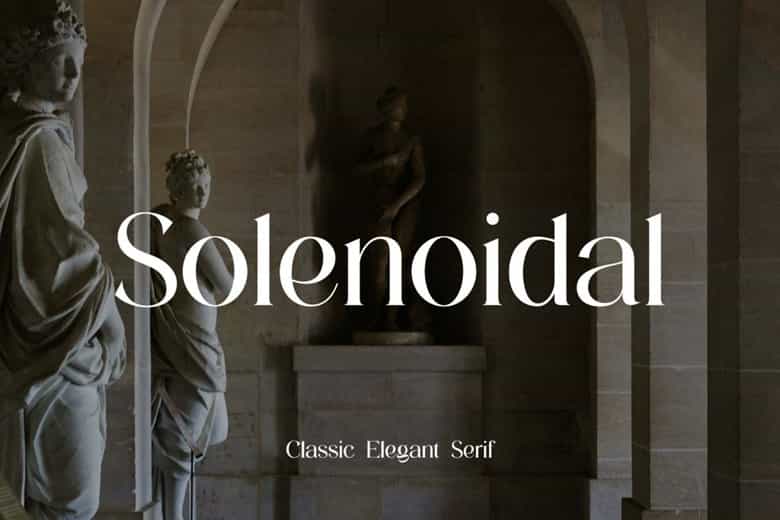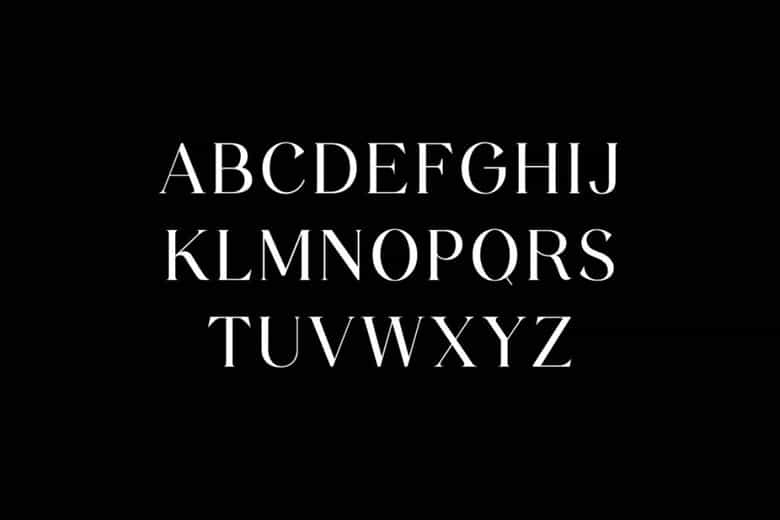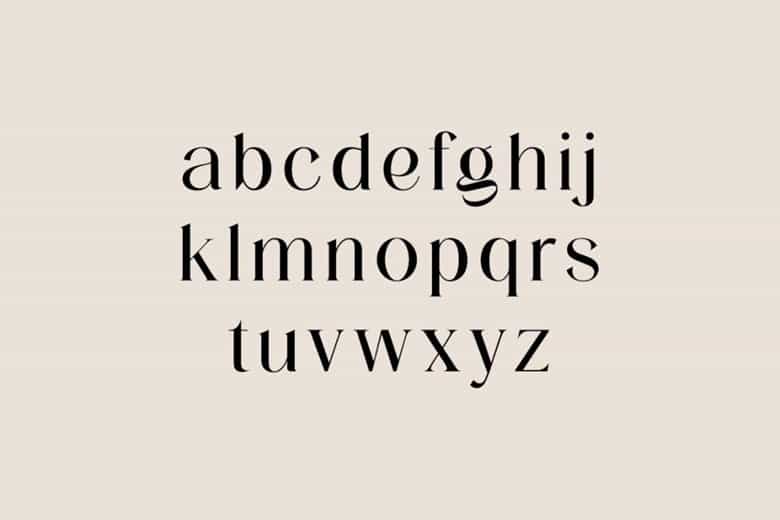
Solenoidal is a new revival of nostalgic serif font that will make you remember what style was like in the 90s. This font is perfect for the following works: stationery, logo, wedding, typography quotes, magazine or book cover, website header, branding, and many more.